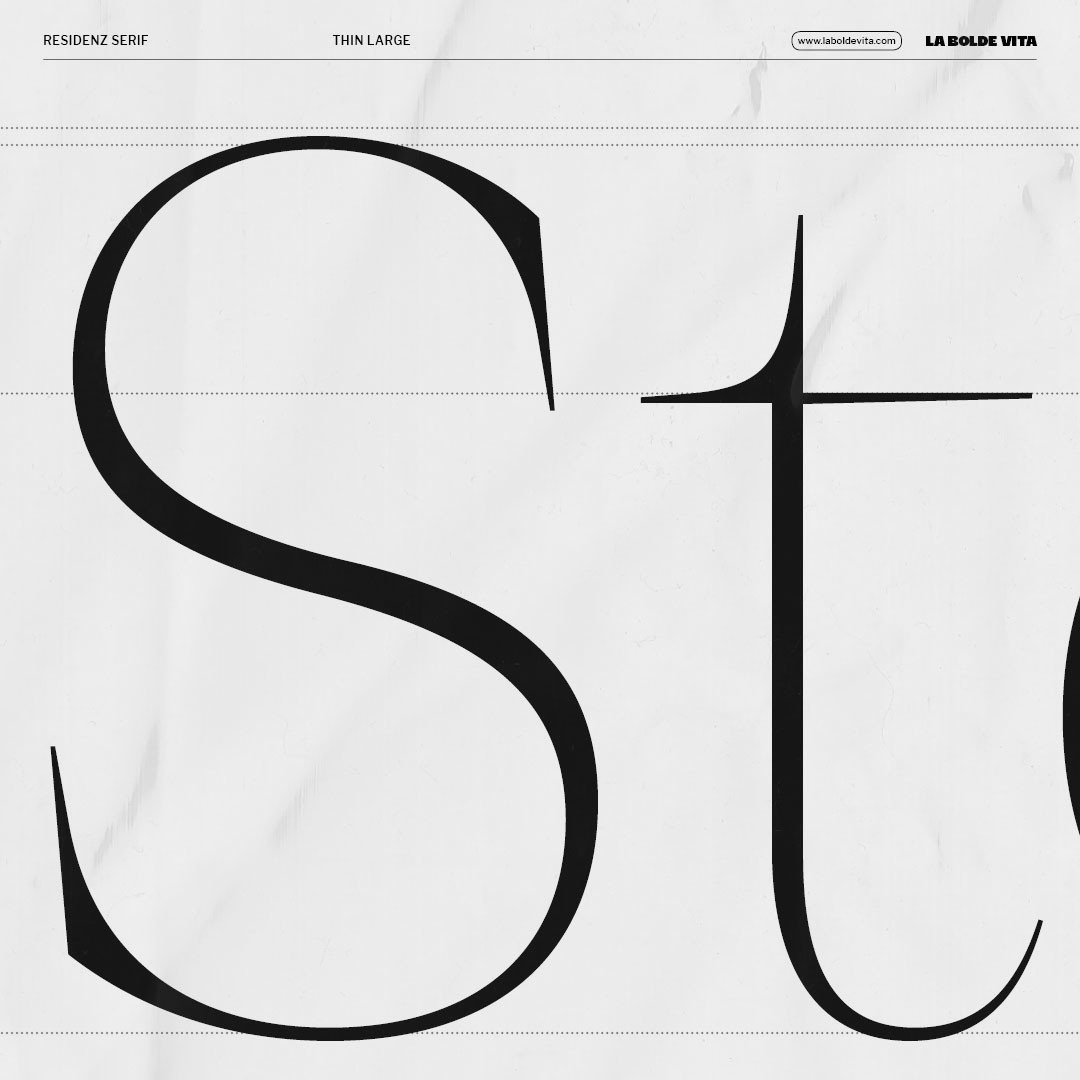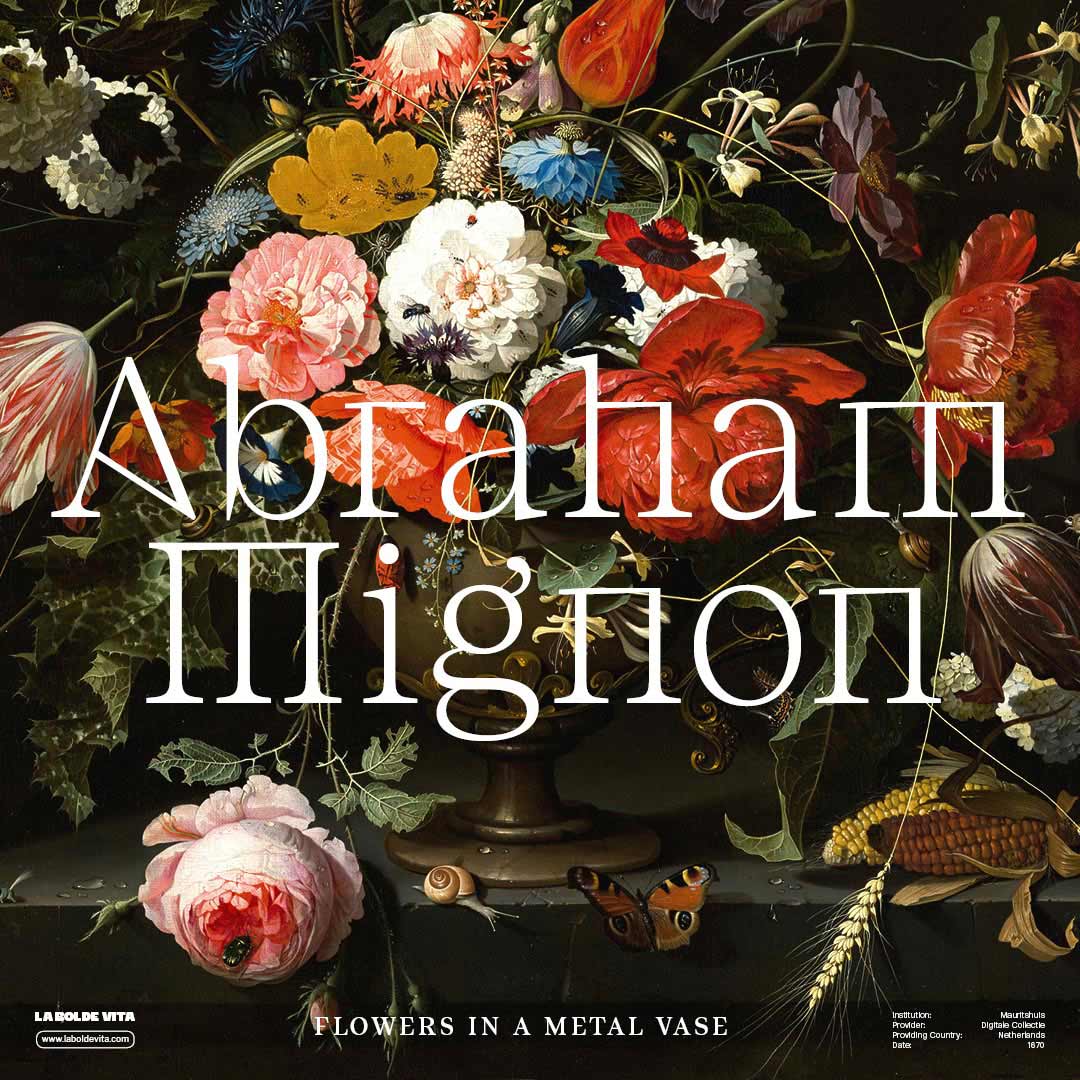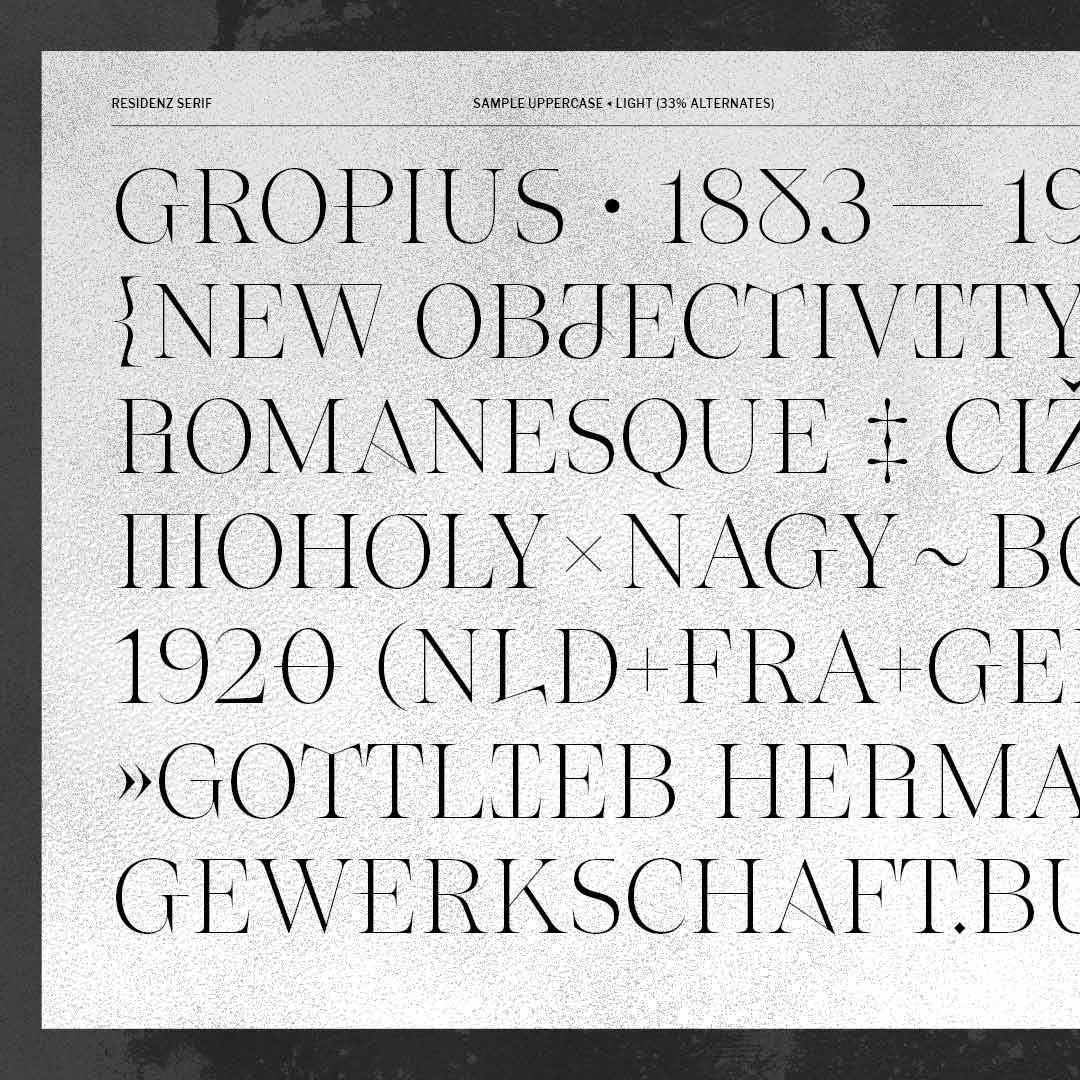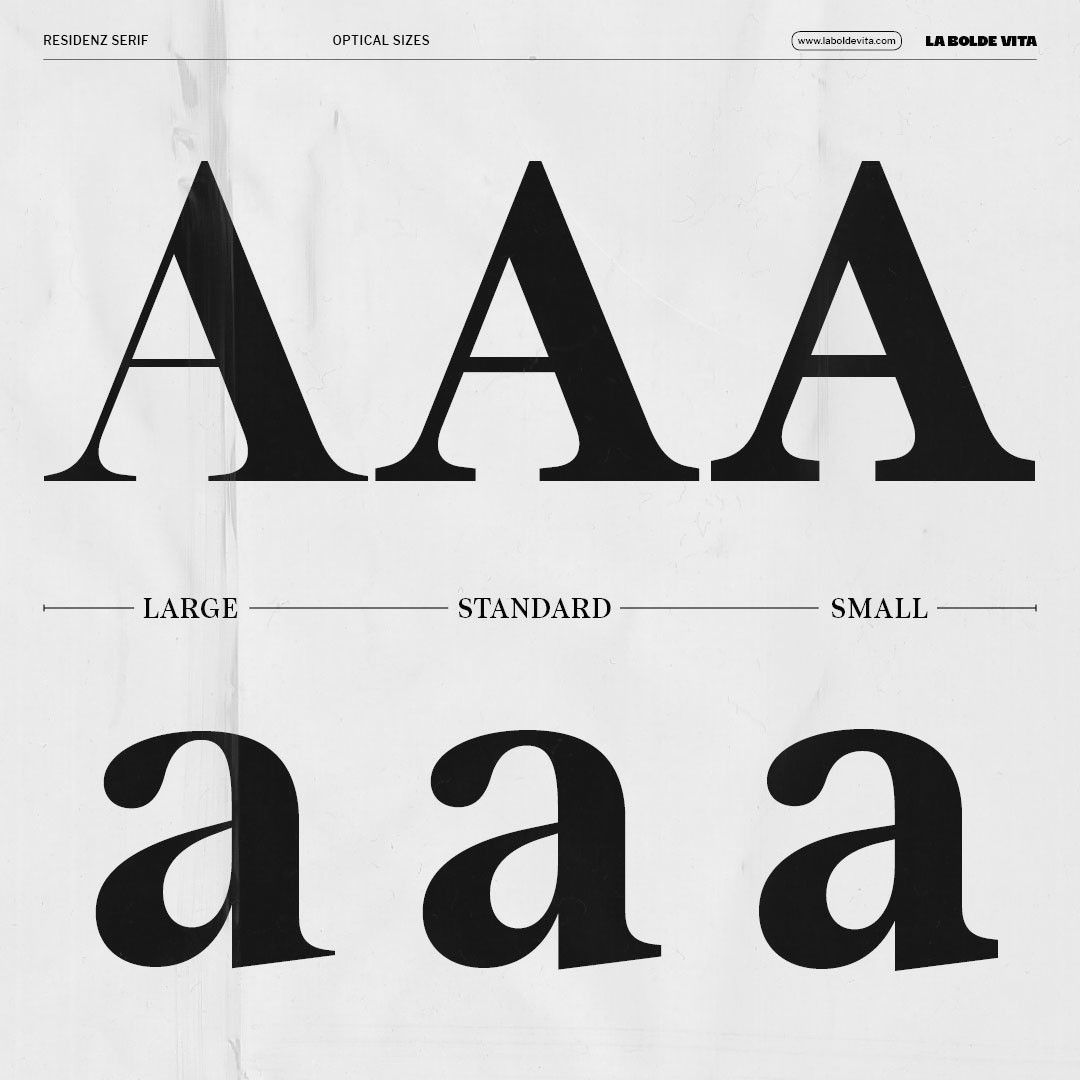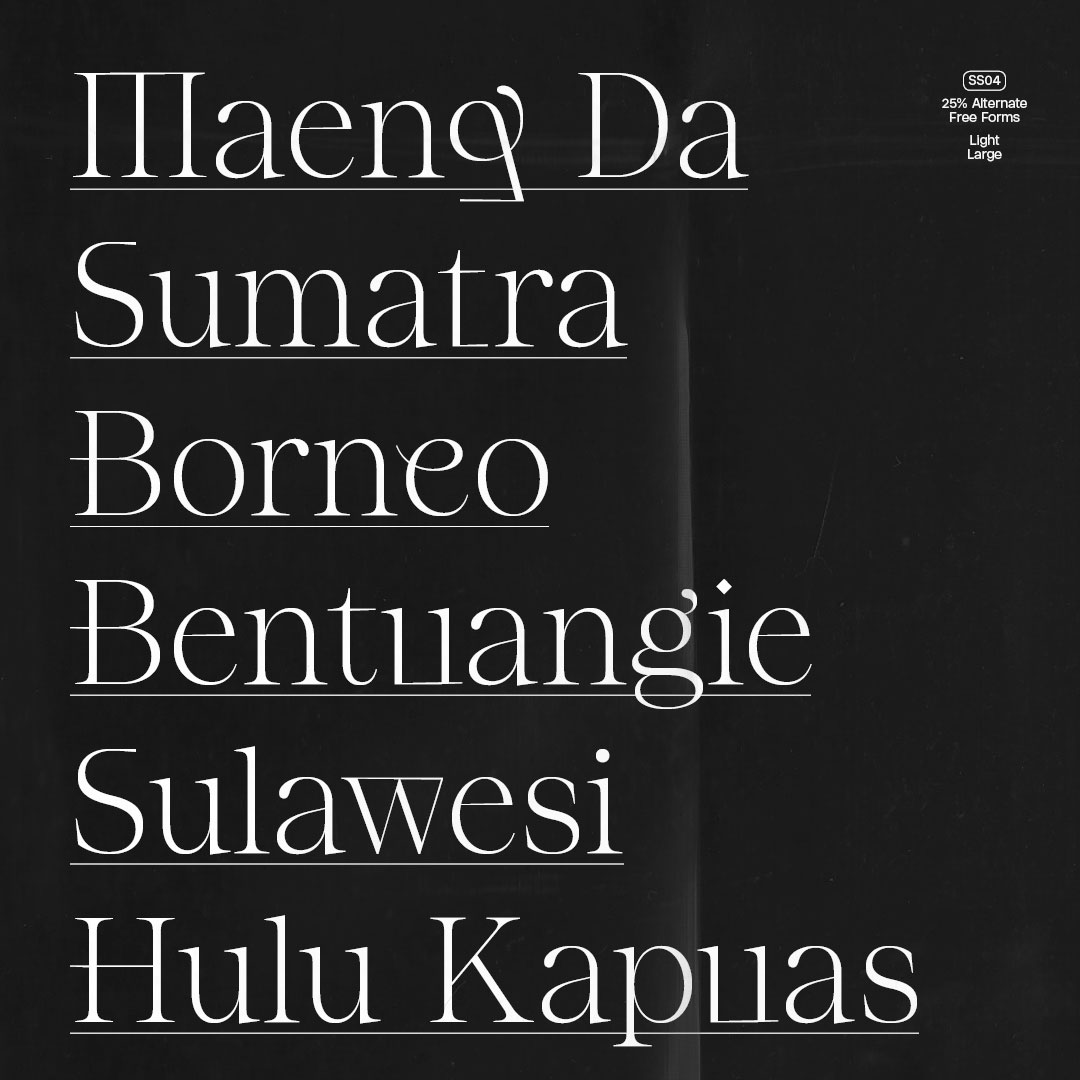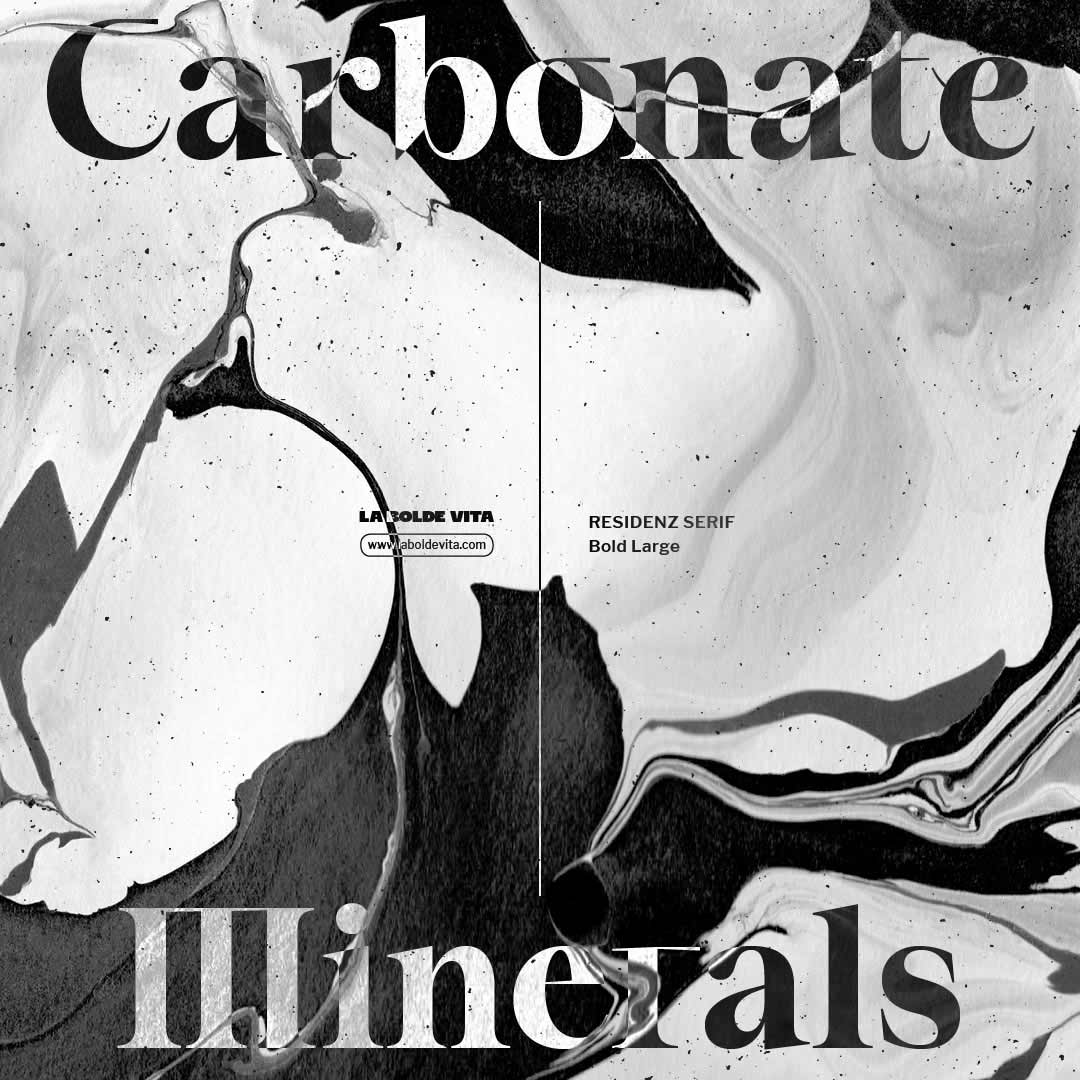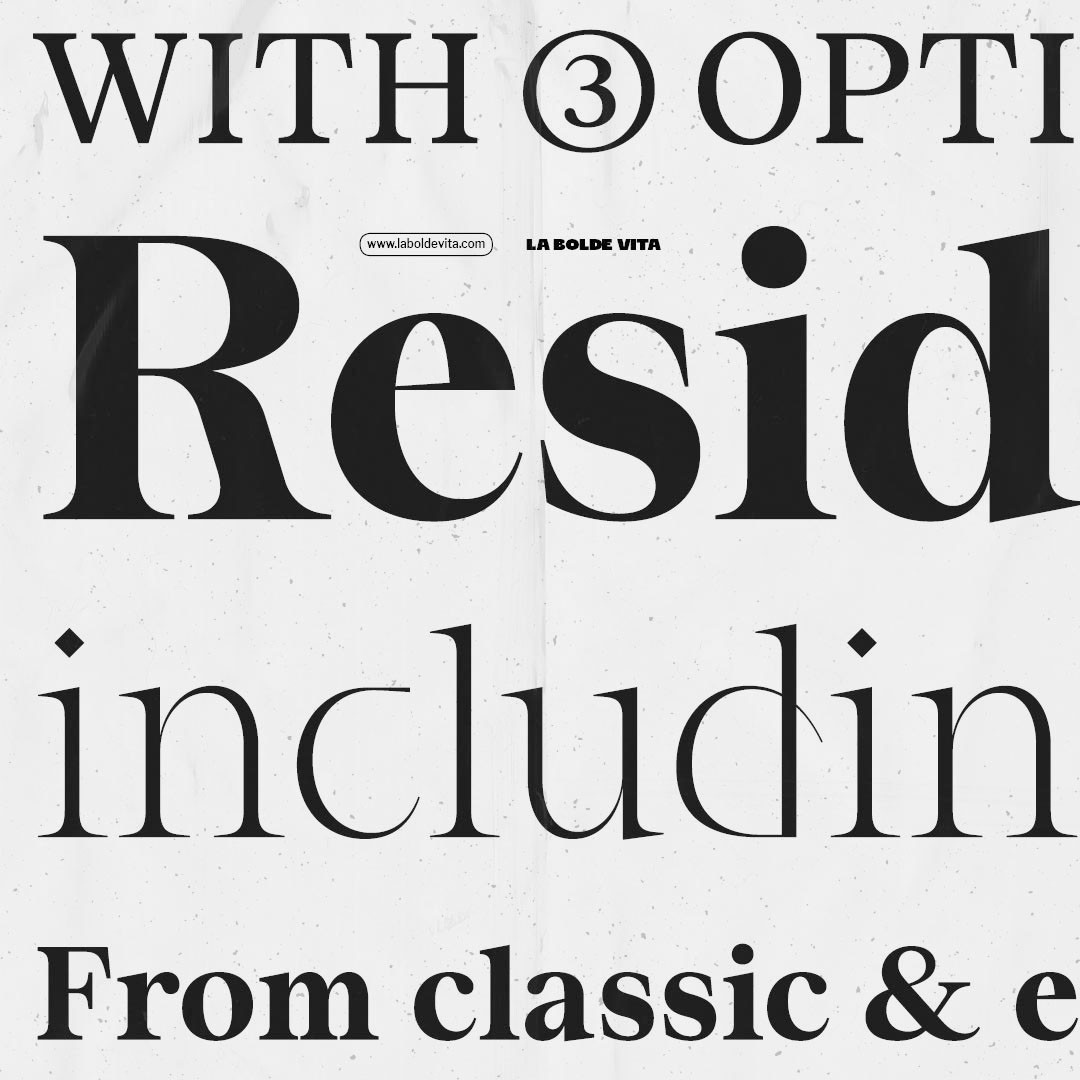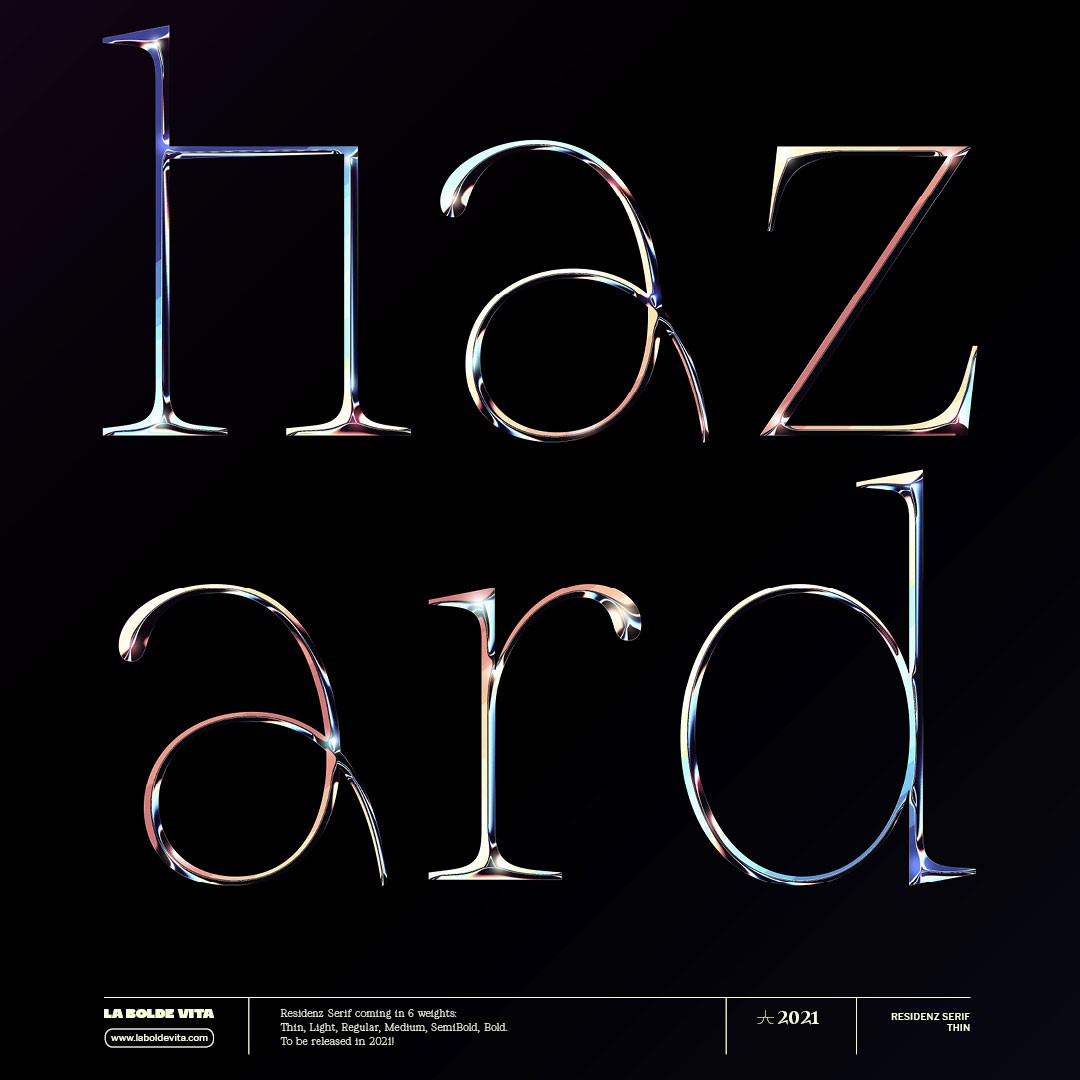
Residenz Serif is the older sibling of Residenz Grotesk and follows the same principle: A neutral, but friendly serif family for a wide range of uses — and thanks to various alternates, its character can be individually adapted.
Because in addition to the usual letter shapes, there is a complete alternative set of letters, inspired by handwritten shapes and graffiti. These can be activated manually or in the desired frequency using predefined stylistic sets. The friendly, elegant style can thus be adapted to an experimental, brutalist appearance.
In addition to 6 different weights for the most common uses, you can also choose from 3 optical sizes. These differ in shape, contrast and spacing — so you can use them on huge posters as well as for smaller texts. In addition, expect an extensive character set for almost all Latin languages and helpful opentype features. And if you really want to take it to the extreme, pair it with Residenz Grotesk for maximum contrast!
Contemporary Serif
Released in 2021
6 weights in 3 optical sizes
Complete Set of alternate Letterforms
980 Glyphs
Residenz Serif Small
Residenz Serif Standard
Residenz Serif Large
The core feature of Residenz Serif are the different stylistic presets, mixing in the alternate letters in different frequencies. But of course the usual OpenType features like ligatures, case sensitive forms and various forms of figures are not missing.
50% alternates
Oldstyle numerals
Circled & squared numbers
Residenz Serif comes with 980 glyphs, covering the Latin Extended-A Unicode Range, a complete set of alternate letters and punctuation and some helpful ligatures.
Thanks to the coverage of the Latin-Extended-A Unicode range, Residenz Serif supports most modern Latin languages. Actually, containing some additional accented glyphs, you can set text in 215 languages. If you still think your language isn't supported, you can look up the full list below or in the specimen.